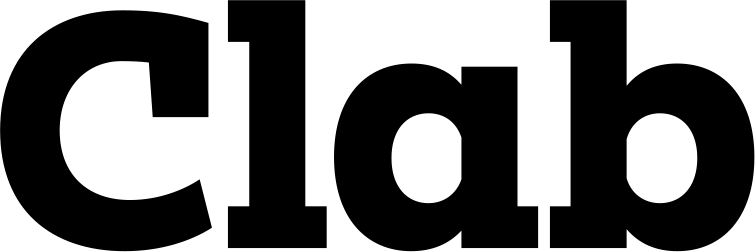
Clab Font
Keep your typography style more reliable and trustworthy by adorning this Clab slab serif font. Its professional design makes it more striking in many situations; printed text, magazines, fashions, decorative, headlines,…
Keep your typography style more reliable and trustworthy by adorning this Clab slab serif font. Its professional design makes it more striking in many situations; printed text, magazines, fashions, decorative, headlines, and other formal sophisticated printed text.
To demonstrate more variety and flexibility brings different versions to incorporate more thrilling vibes into your writing design and leave a lasting impression on the audience.